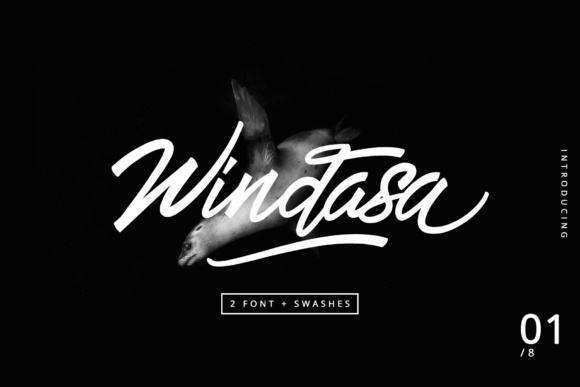
Windasa Font
Immerse yourself in the world of Windasa, a hand-lettering display font that captivates with its enchanting swashes and mesmerizing curves. This masterpiece, conjured by the creative mind of e.myself12, is a visual symphony that dances across your designs, leaving a trail of elegance and charm.
With Windasa, the possibilities are endless. Embark on a creative journey where you can craft captivating apparel, banners that sing with vibrancy, posters that ignite imaginations, logos that exude individuality, and hand-lettering that speaks volumes. Windasa's versatility knows no bounds, making it the perfect companion for diverse design projects.
Imagine your designs adorned with Windasa's graceful swashes, each stroke a testament to the artistry and passion that went into its creation. Let your imagination soar as you weave together words and visuals, creating masterpieces that captivate and inspire.
With Windasa, you're not just downloading a font; you're inviting a creative force into your design arsenal. Its meticulously crafted characters are a testament to the dedication and skill of its creator, ensuring that every design you craft is a reflection of your unique vision.
As you explore the depths of Windasa's beauty, you'll discover a font that goes beyond mere aesthetics. Its swashes dance and flow, guiding the eyes through your designs, creating a captivating narrative that engages and captivates.
In a world saturated with digital noise, Windasa emerges as a beacon of individuality, a font that sets your designs apart from the ordinary. Its intricate details and expressive curves breathe life into your creations, transforming them into works of art that resonate with your audience.
Welcome to the world of Windasa, where creativity knows no limits. Unleash the power of this magnificent font and embark on a design journey that will leave your audience breathless.